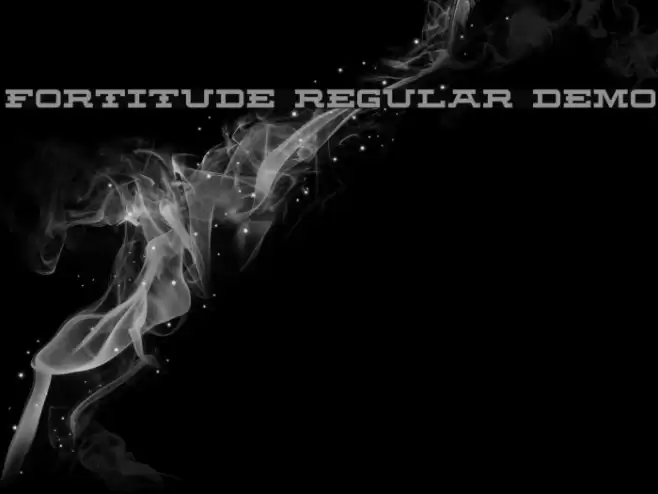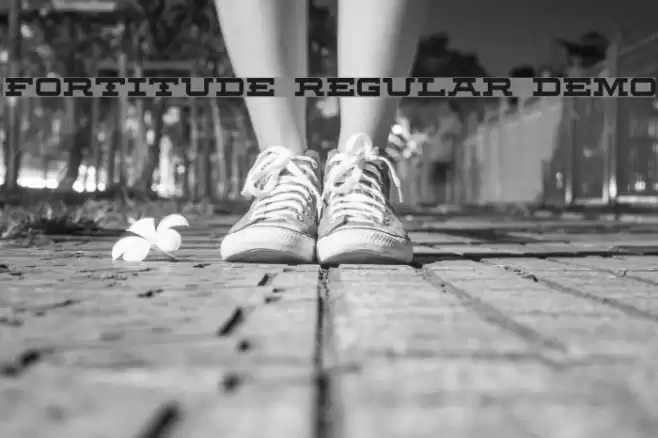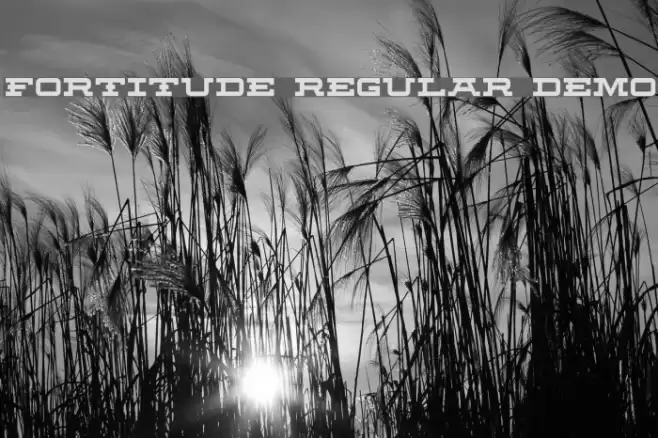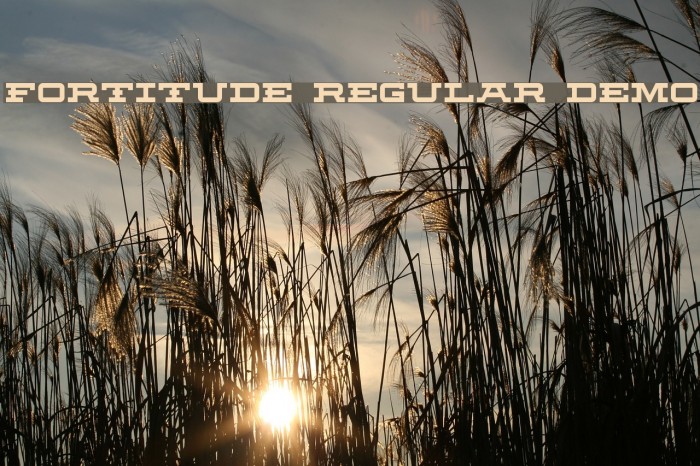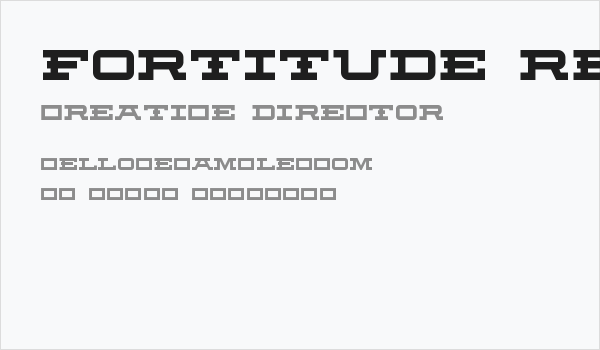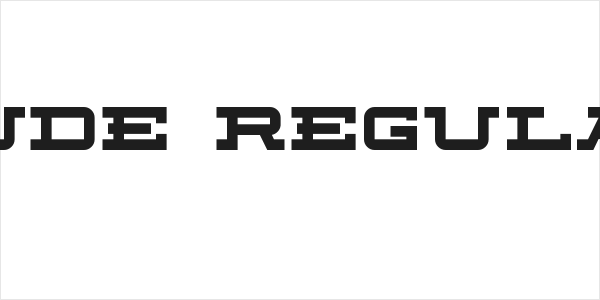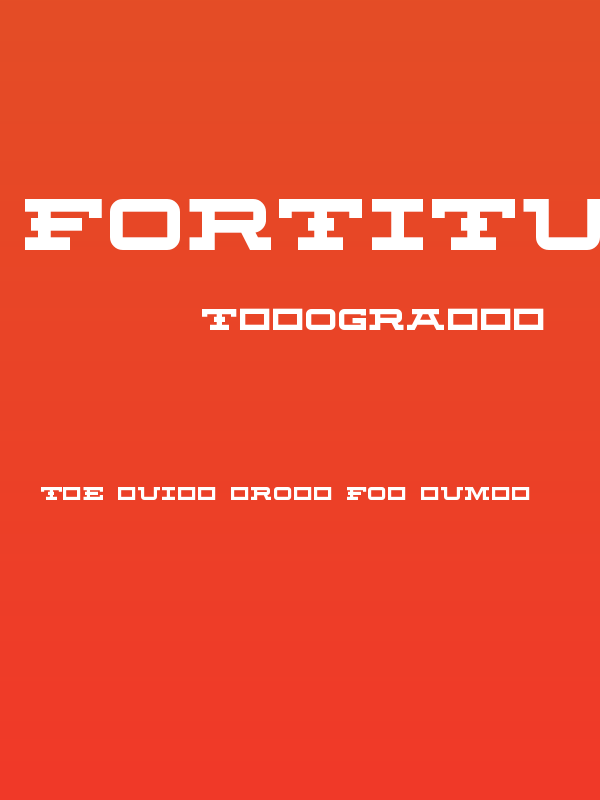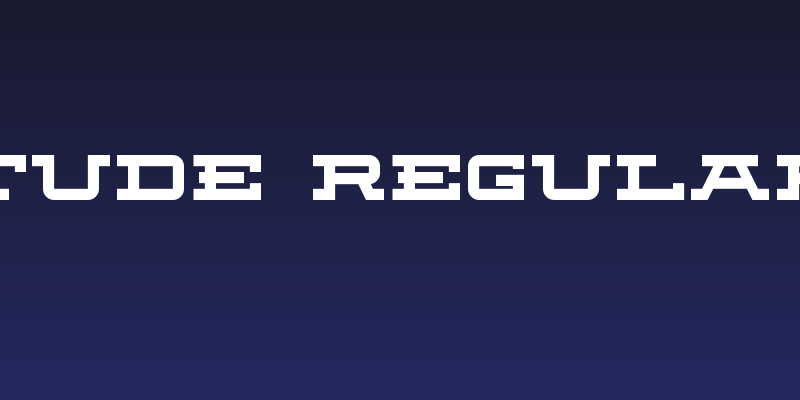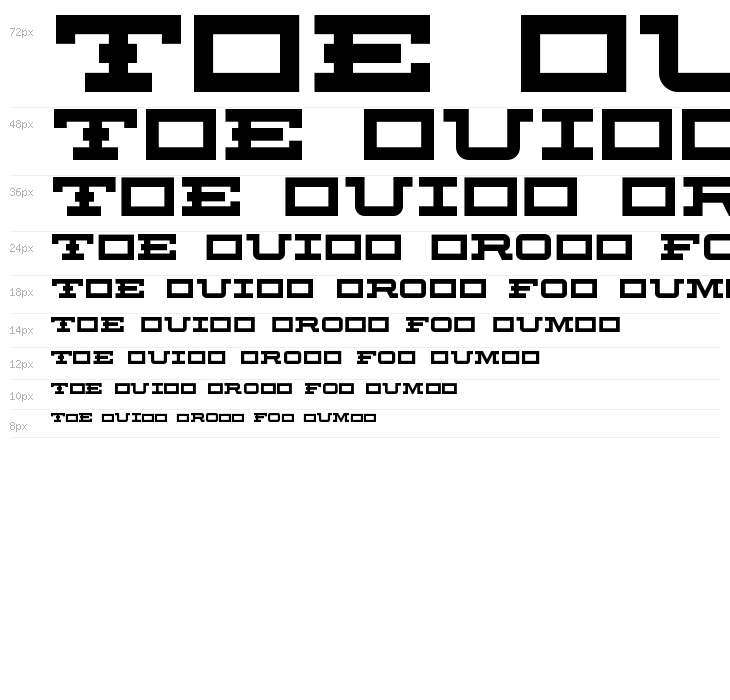
Fortitude Regular Demo Font
Fortitude Regular Demo Description
This font features a bold, geometric design with a strong, structured appearance. Each character is composed of thick, block-like strokes that create a sense of stability and strength. The letters are uniformly spaced, contributing to a clean and organized look. The angular edges and uniform line thickness give it a modern, industrial feel. This font is highly legible and stands out due to its distinctive, boxy style, making it suitable for impactful designs.
A bold, geometric font with a modern, industrial style from Uncategorized fonts.
- Proposed Projects: Ideal for branding, posters, headlines, and any design requiring a strong, impactful presence.